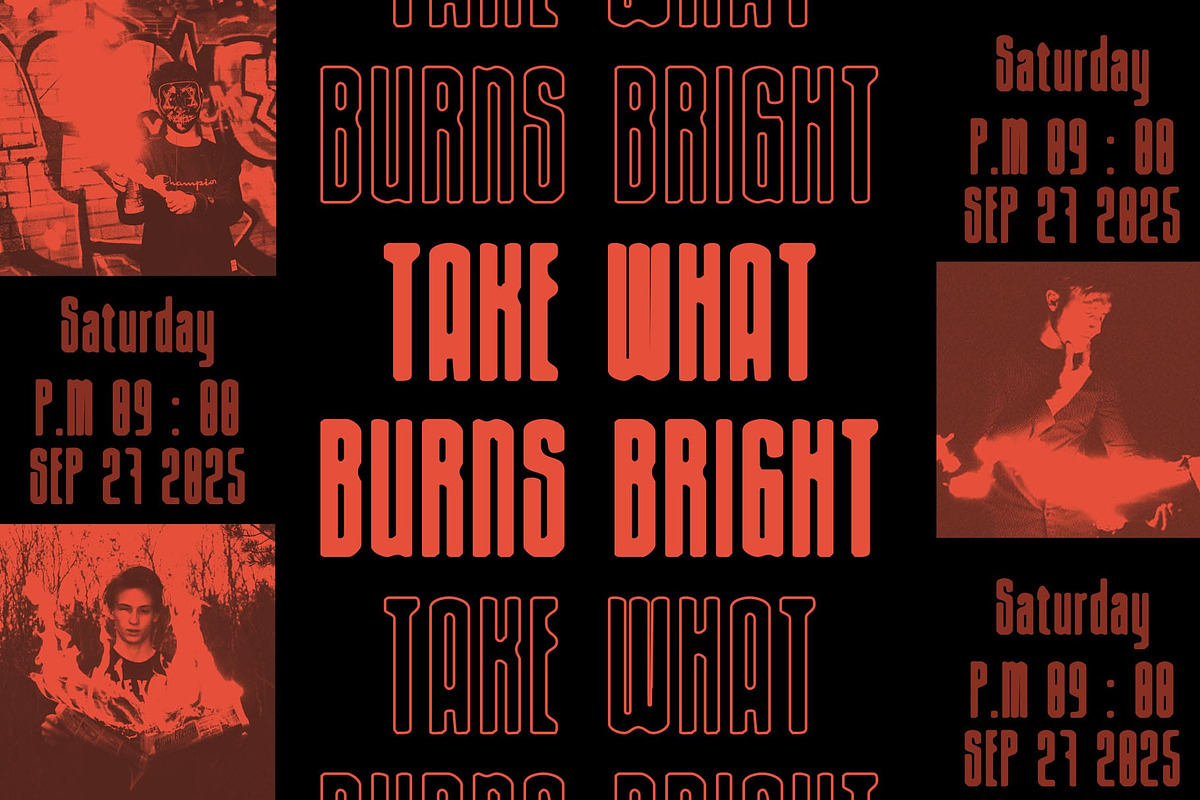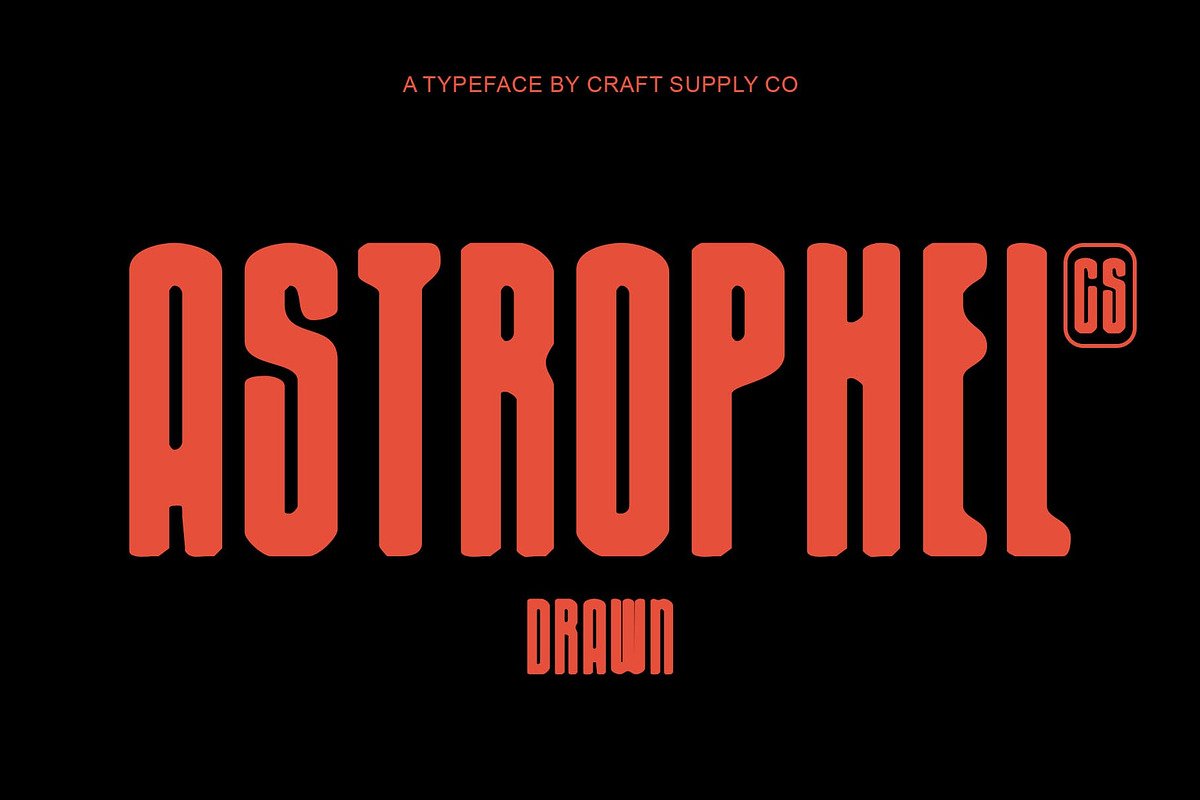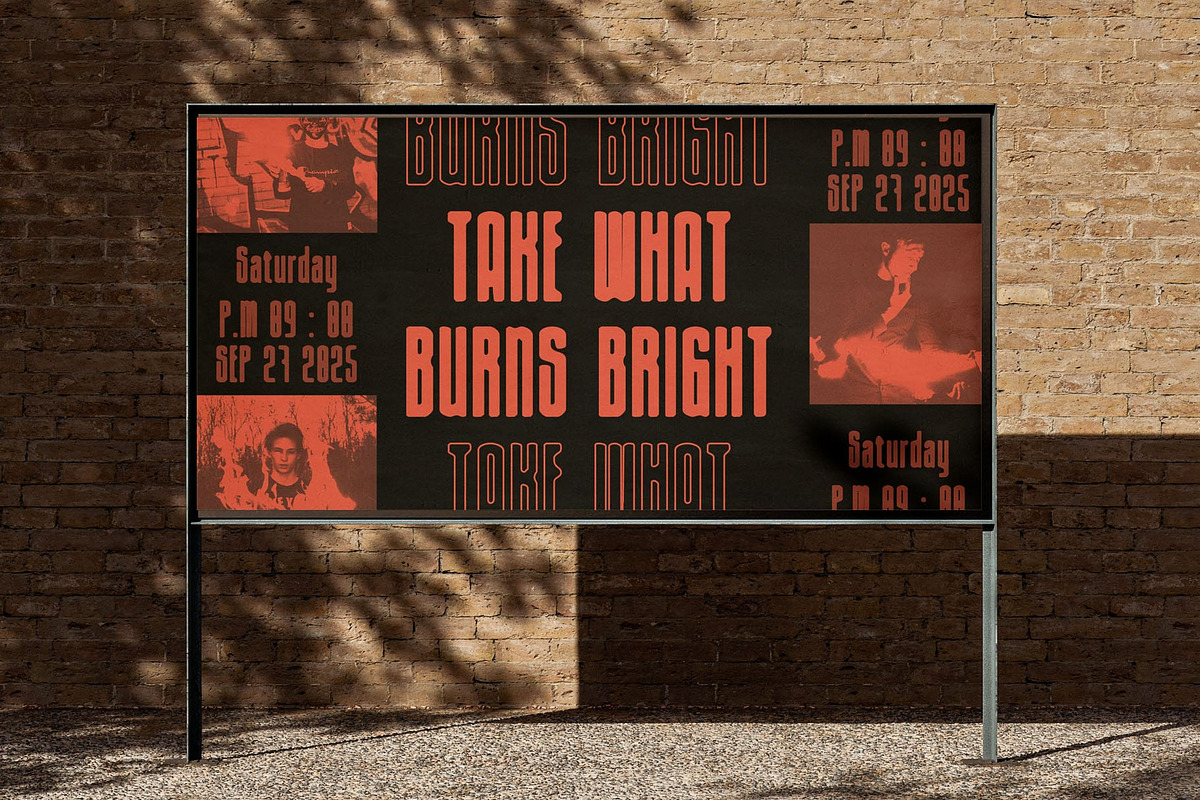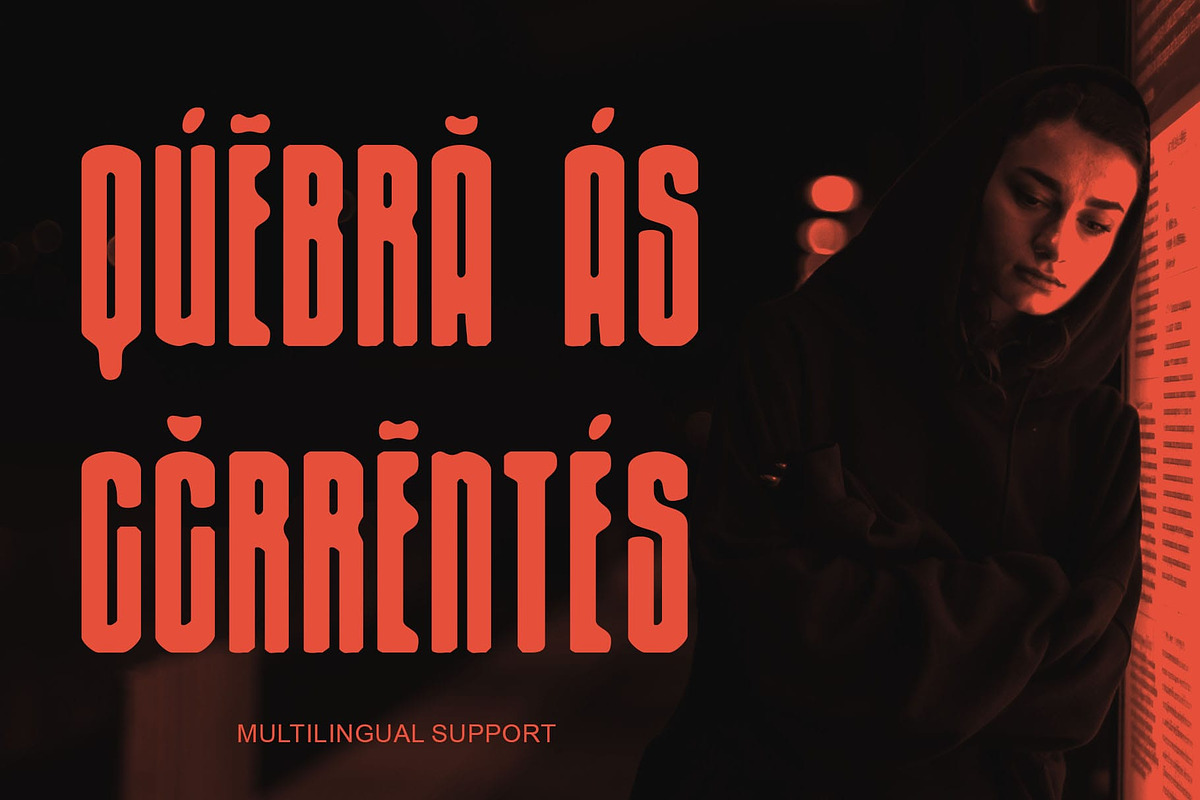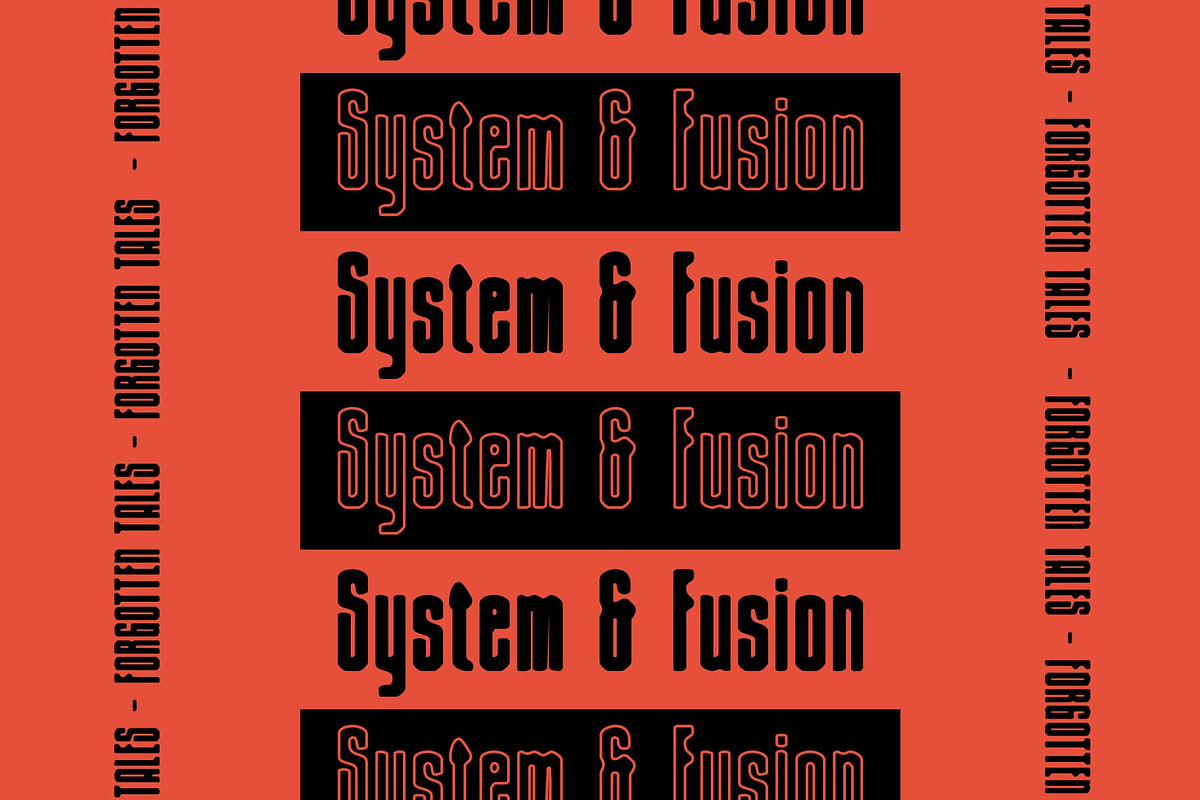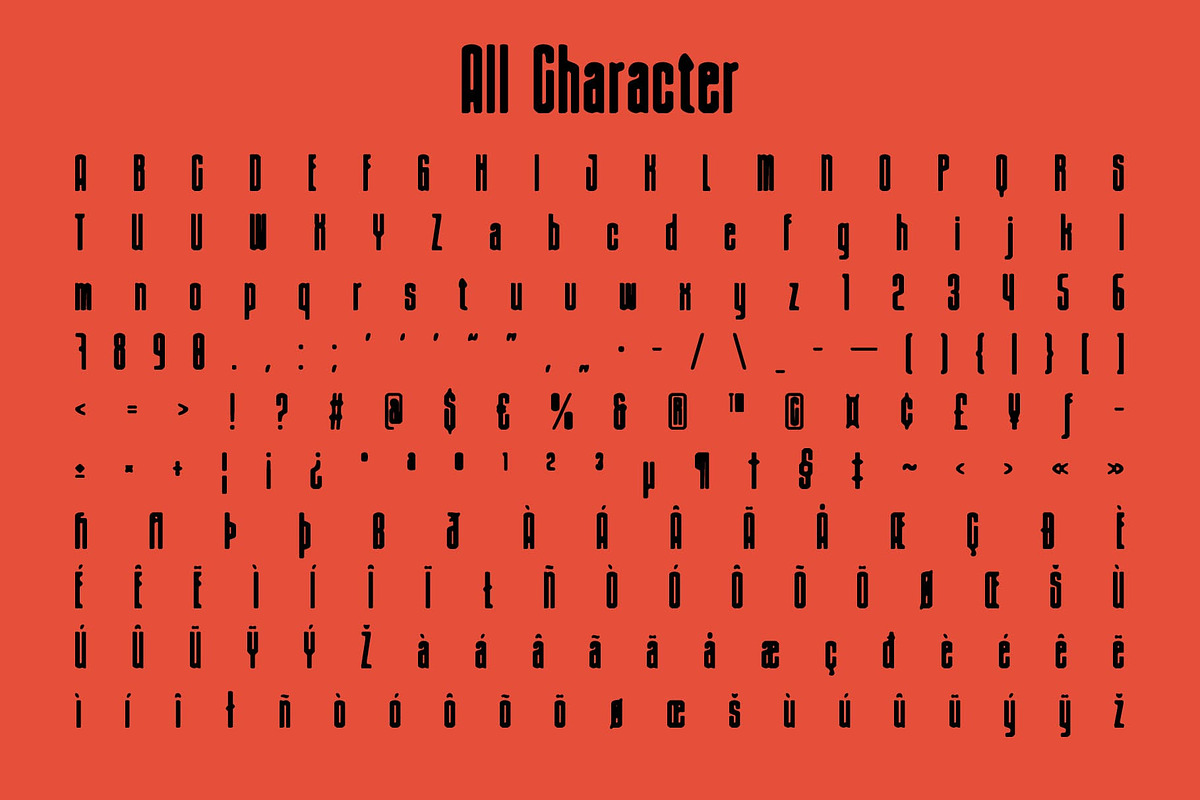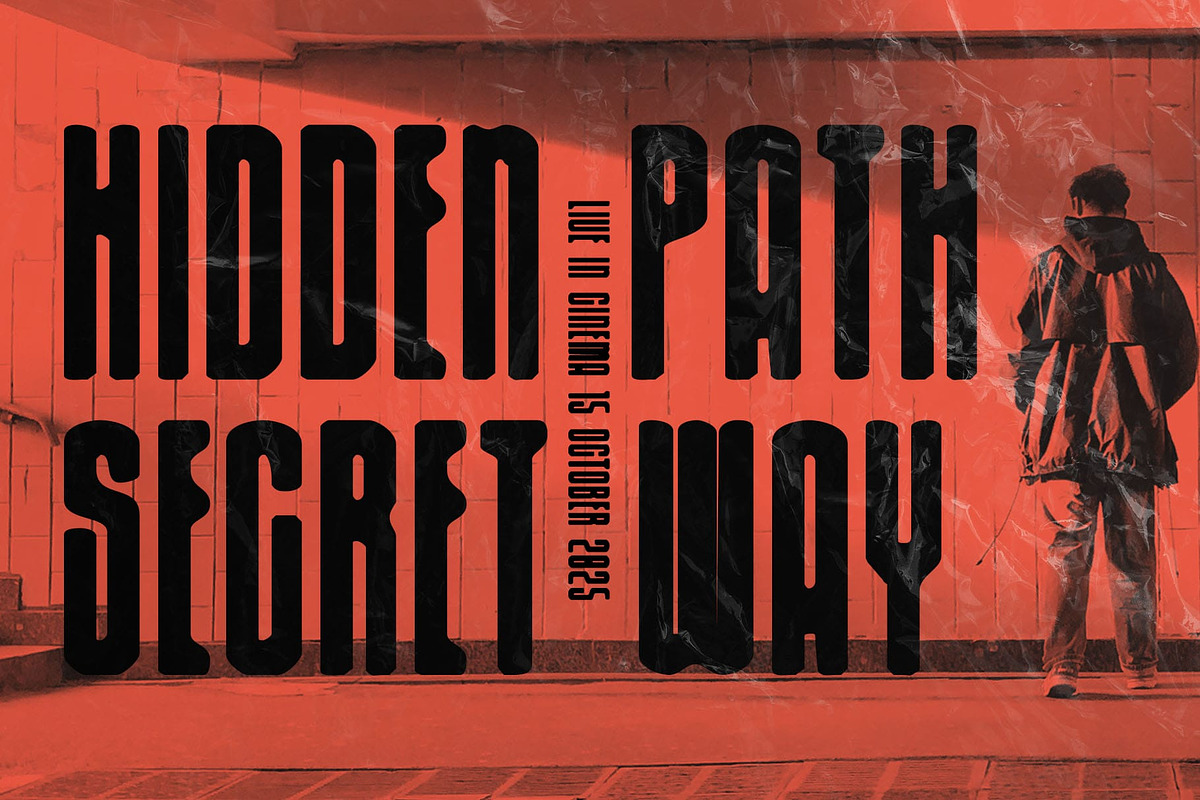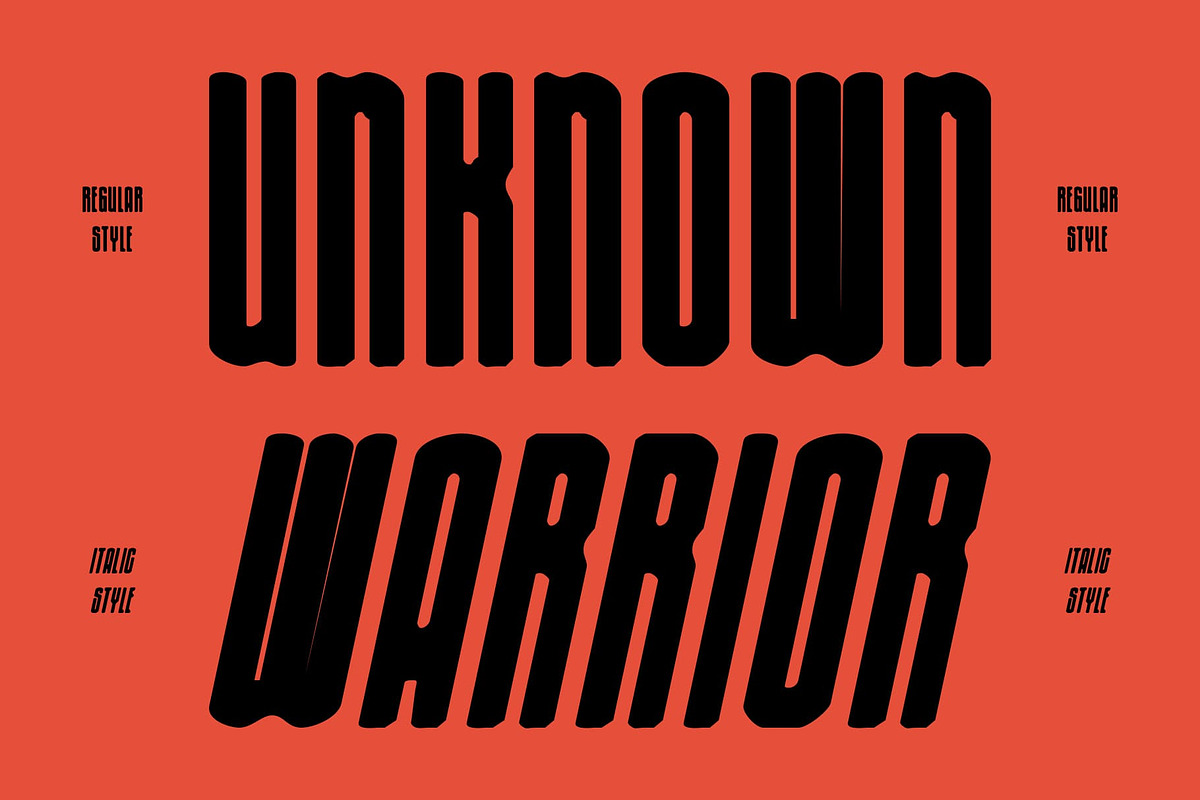
CS Astrophel Drawn
CS Astrophel Drawn – Condensed Sans Serif with Artistic Elegance: Where Modern Refinement Meets Handmade Expression
Condensed Modern Sans Serif This is a condensed modern sans serif font designed to convey boldness and elegance within a slim structure. Its long, narrow proportions and confident letterforms create a strong visual impact while maintaining refined readability. Perfect for designers who want a font that looks contemporary yet timeless.
Bold, Slim Shapes with Graceful Flow The defining feature of font lies in its bold yet slim sans serif shapes. Each character balances strength with elegance, combining long vertical strokes and subtle geometric harmony. This graceful flow gives the typeface a sleek and modern appearance, ideal for editorial layouts, striking posters, and luxury branding.
Handmade Drawn Texture for Depth What sets fonts apart is its drawn handmade texture, which enriches the font with individuality and artistic warmth. The subtle imperfections of the drawn finish highlight its handcrafted quality, ensuring every design feels more authentic and expressive. This detail transforms the typeface from a simple sans serif into a distinctive design tool.
Versatile for Luxury and Creative Design From high-end branding and editorial spreads to modern posters and advertising, fonts adapts seamlessly. Its condensed form maximizes space efficiency, while its artistic finish adds sophistication and uniqueness. Whether you’re building a luxury identity or creating bold visual statements, this font blends refinement with creativity.